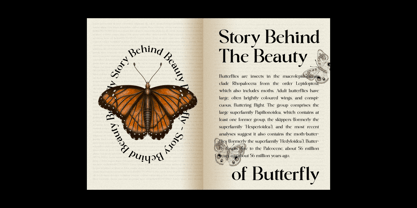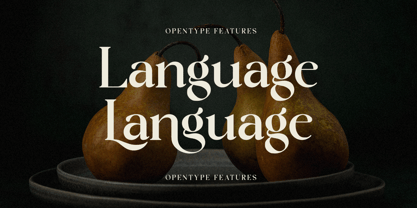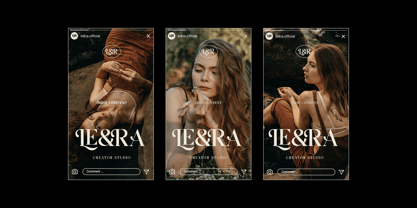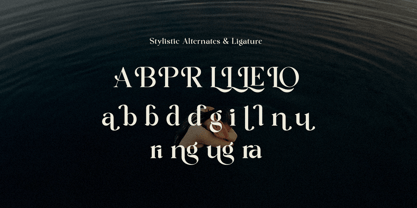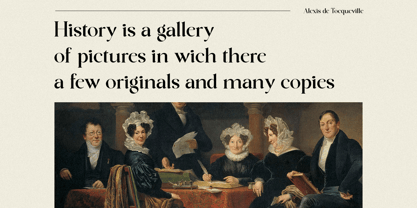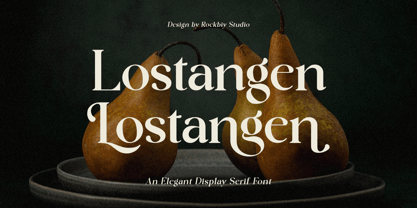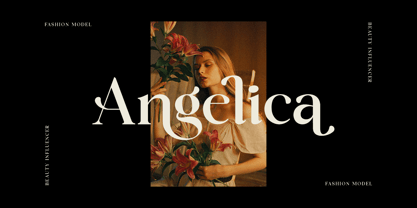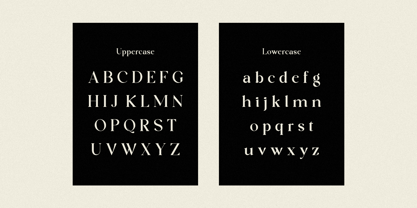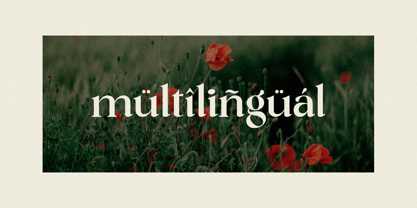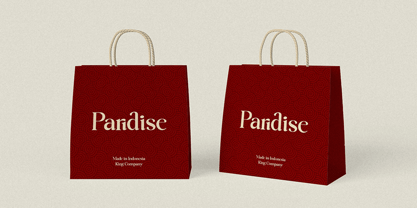
Lostangen
by Rockboys Studio
The Lostangen Font Family was designed by Hayinah and published by Rockboys Studio. Lostangen contains 1 styles. More about this family
Lostangen is an elegant and distinct serif font. Suitable for a wide variety of designs due to its neat and simple style, this font has the potential to become your favorite go-to font, no matter the occasion!
Designers: Hayinah Hayinah
Current Foundry: Rockboys Studio